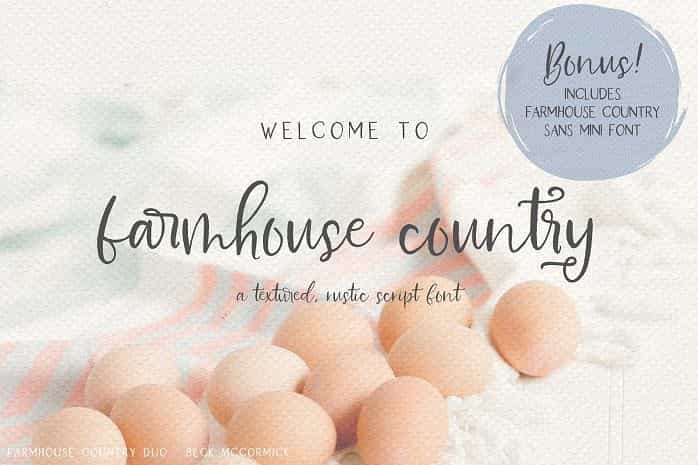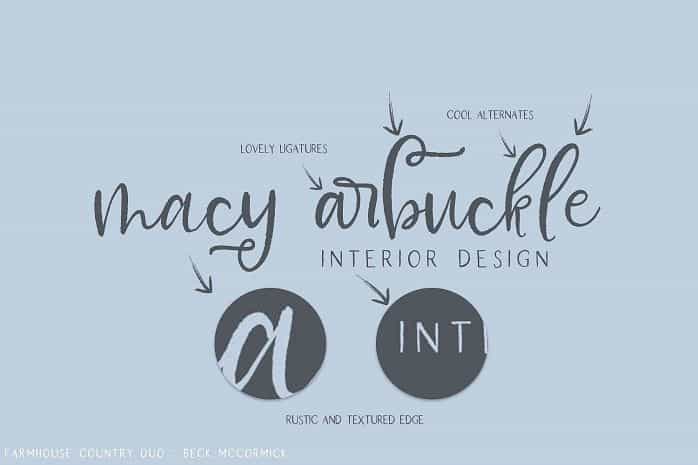
Discover Farmhouse Country Rustic Script Font, part of the Brush Handwritten collection—a versatile and unique font perfect for adding a personal touch to your projects. Download it for free and enjoy crafting designs with style, from invitations to social media posts. This font is available exclusively for personal use, giving you the freedom to create without limits. Unlock your creativity with Farmhouse Country Rustic Script Font today!
A font which is rough to the touch and looks antique. Introducing Farmhouse Country Font. BeckMcCormick designed it. It is a premium font which you can find on creativemarket, but today it is free for download. Farmhouse Country is a beautiful textured font duo that will definitely be perfect for all of your shabby chic font needs. This combination is perfect for your wedding invitation design, shabby + feminine brand, t-shirts or print design and many other things.